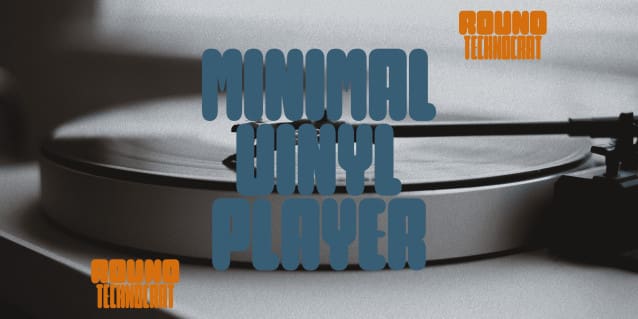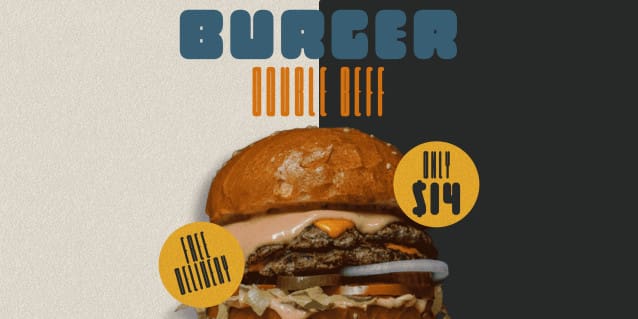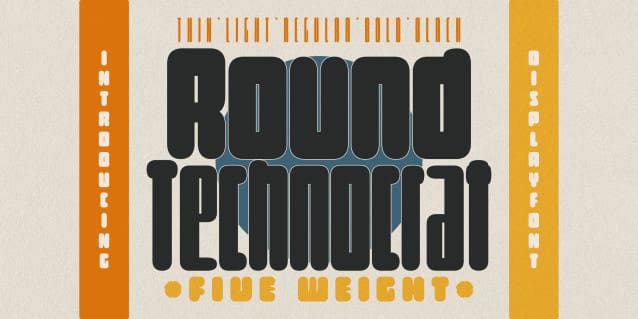
Round Technocrat Font
Round Technocrat Font is a rounded, geometric font that blends heavy, square shapes with circular curves to create a distinct and modern typeface.
The font family is perfect for designs that require a balance of rigidity and fluidity.